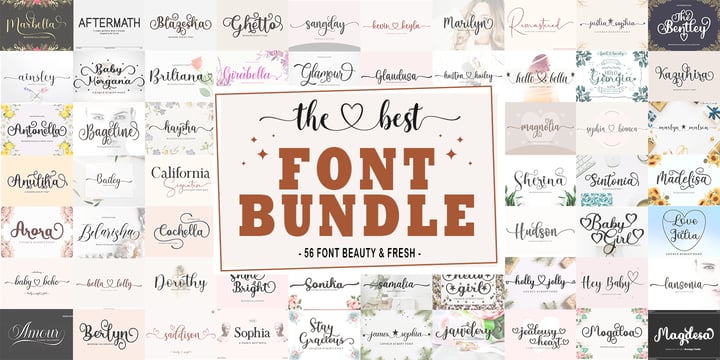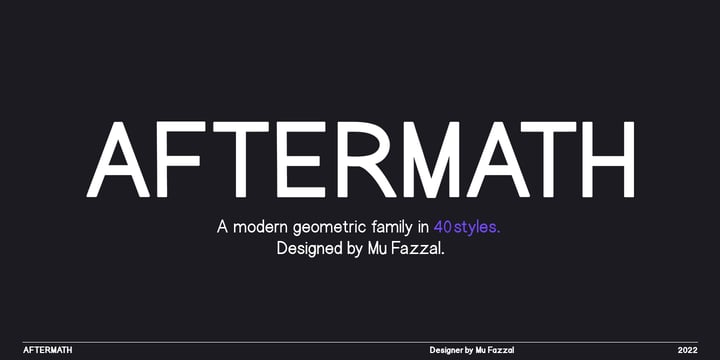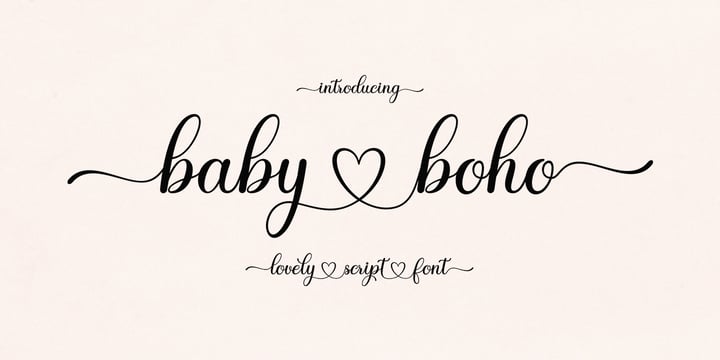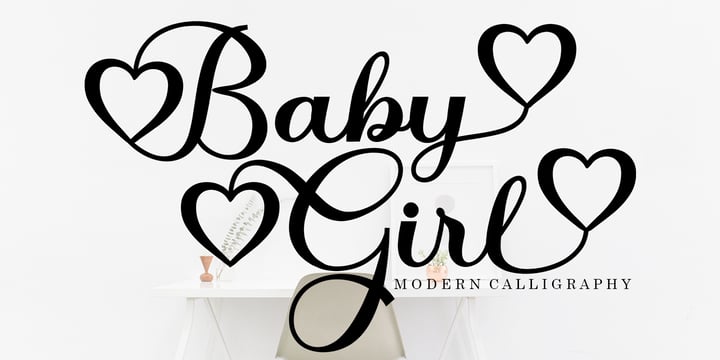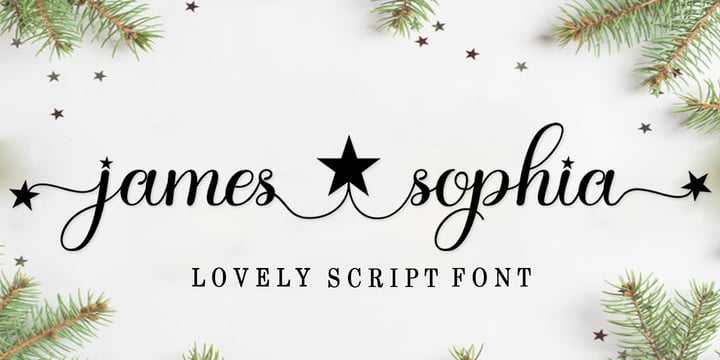
The Best Font Bundle
This bundle contains a typeface consisting of 130 high-quality typefaces. All our new bestselling unique typefaces! There are Serif, Sans Serif, and Script, handwritten fonts, all with a modern and unique stylish look Combine with alternate letters and ligatures, as well as different languages. You can use them for various purposes such as logos, wedding invitations, t-shirts, and many more.
The Best Font Bundle
This bundle contains a typeface consisting of 130 high-quality typefaces. All our new bestselling unique typefaces! There are Serif, Sans Serif, and Script, handwritten fonts, all with a modern and unique stylish look Combine with alternate letters and ligatures, as well as different languages. You can use them for various purposes such as logos, wedding invitations, t-shirts, and many more.